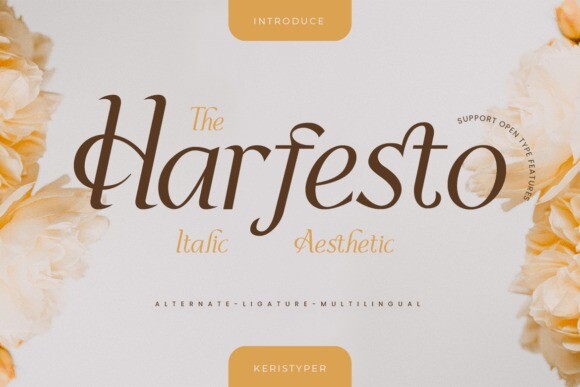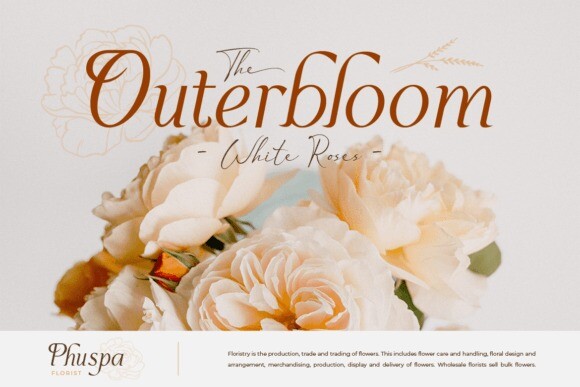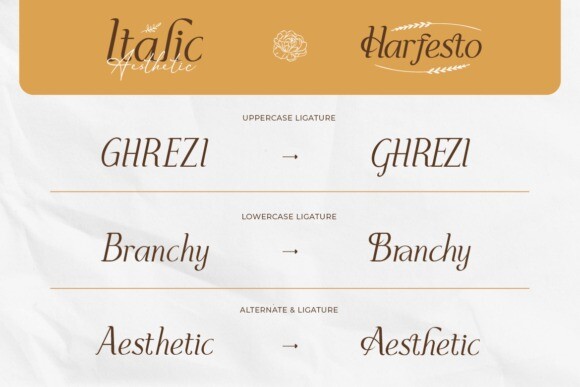
Harfesto Font
This font is good for logo design, social media, movie titles, book titles, short text, and even long text, and good for your secondary text combined with a script, sans, or serif.